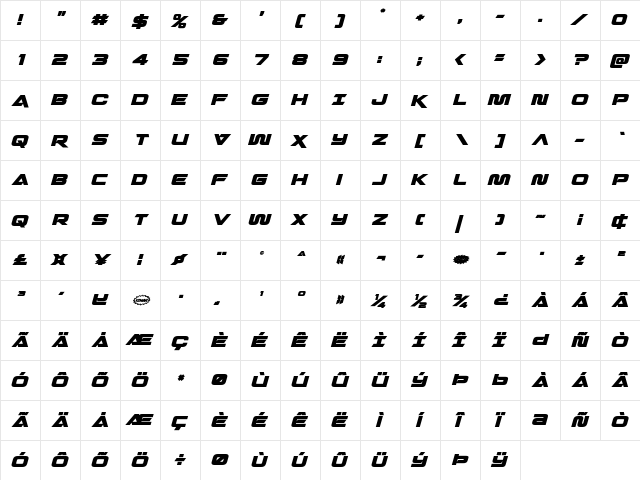
Quark Storm Bold Italic Font Preview
Design Context for Quark Storm Bold Italic Typeface
Quark Storm Bold Italic is a composed and adaptable typeface that performs quietly and consistently across a wide range of design contexts. The dynamic lean of this cut emphasises speed and emphasis in any layout. The heavy weight commands attention and anchors typographic hierarchies.
Pro Tip: Try Quark Storm Bold Italic for annotation and caption copy alongside an upright companion — the contrast in angle creates a dynamic but ordered typographic system.